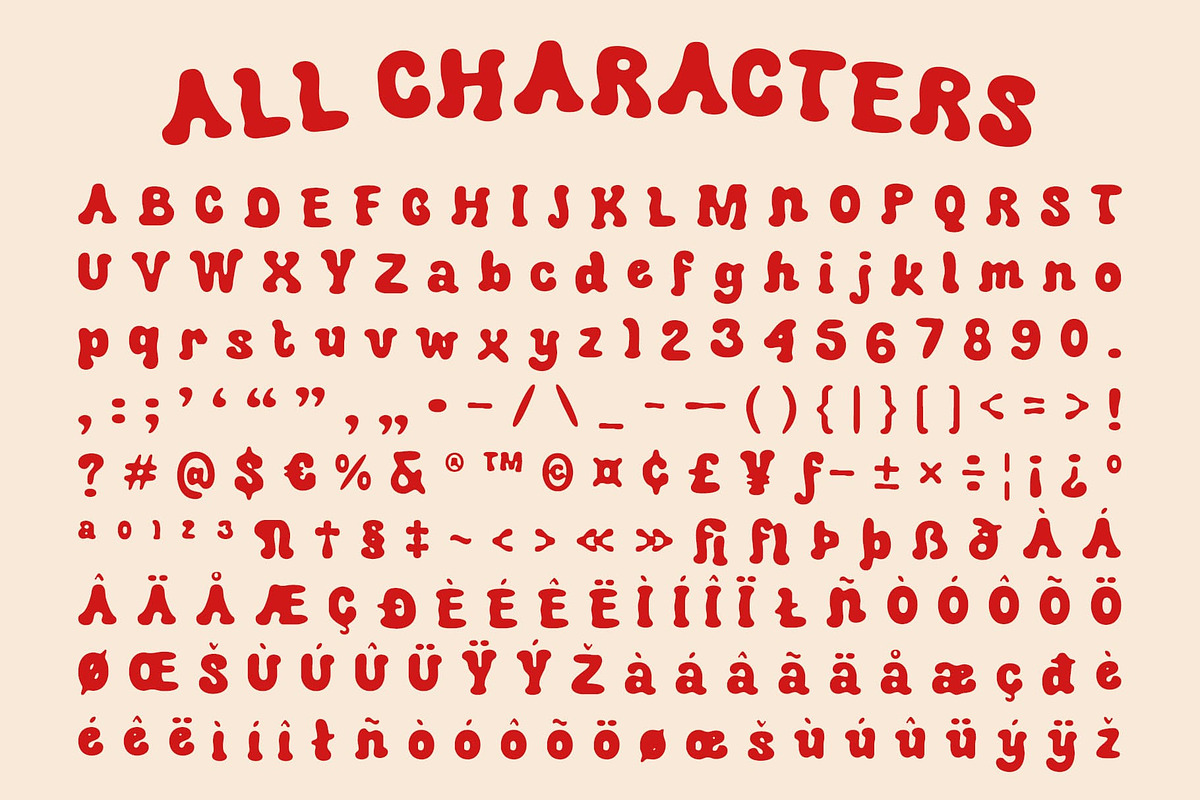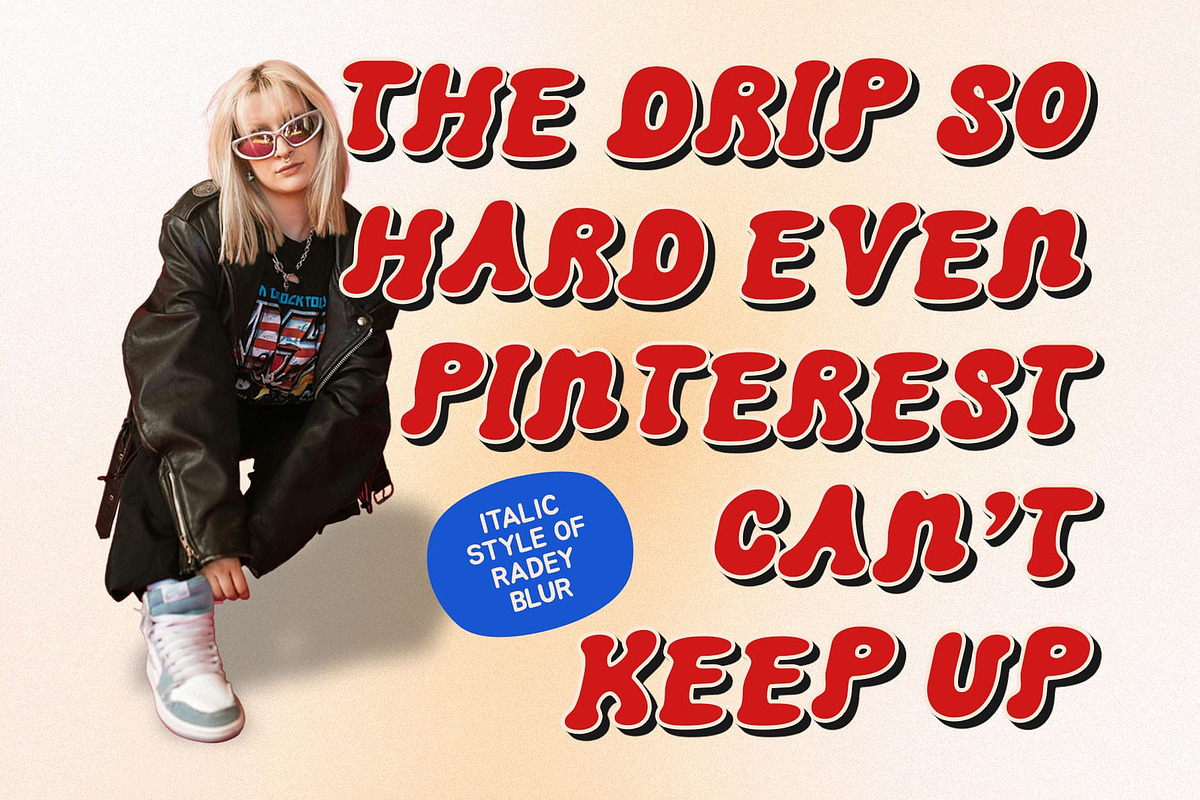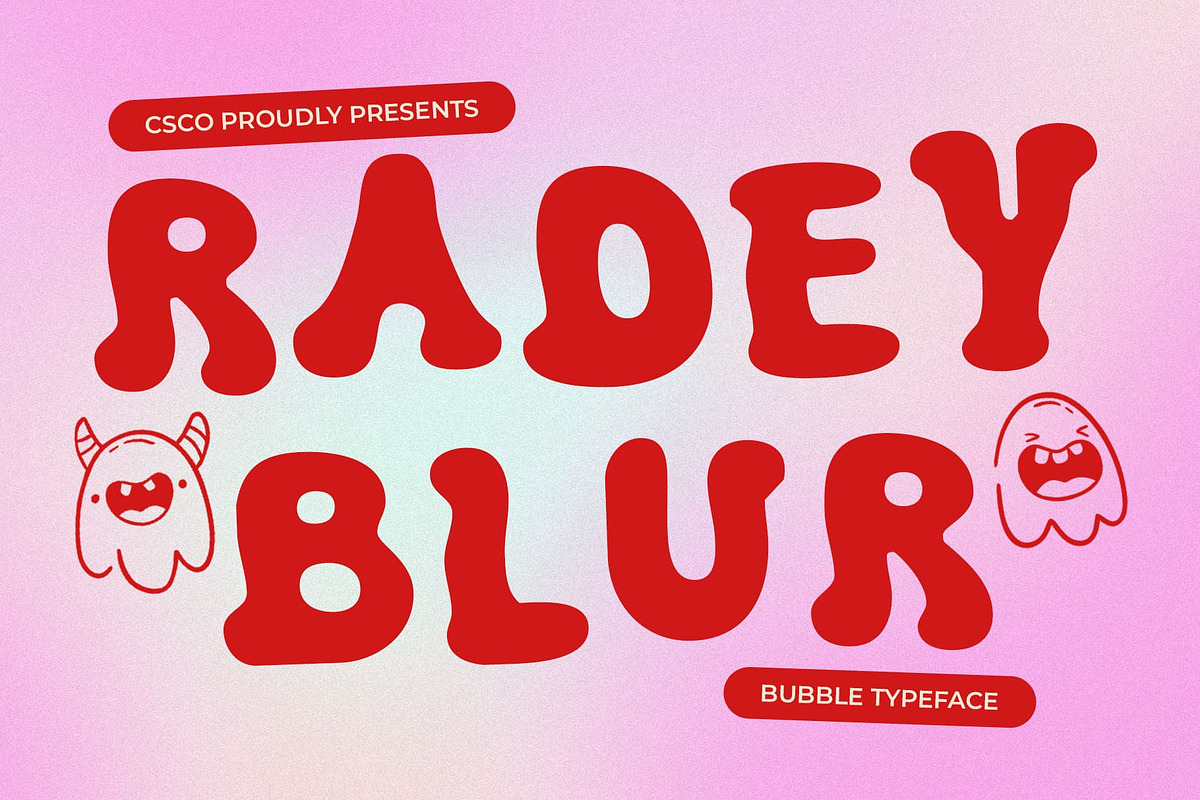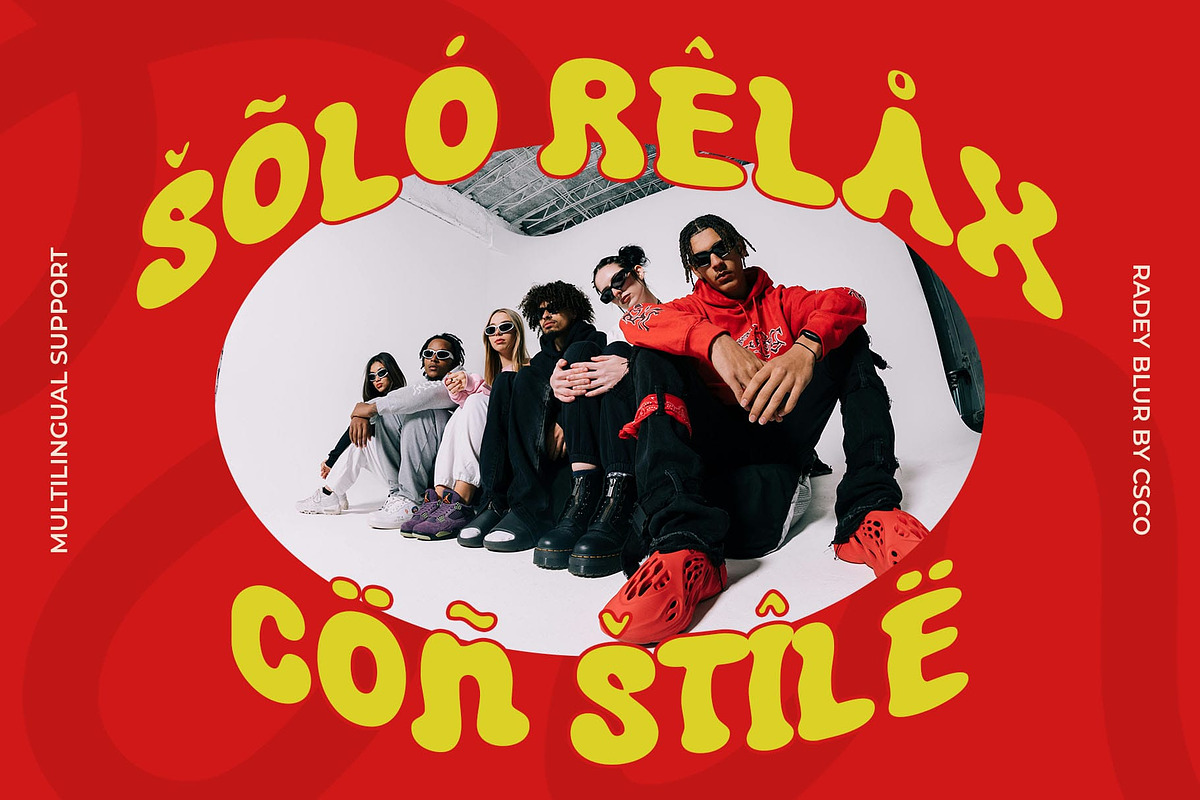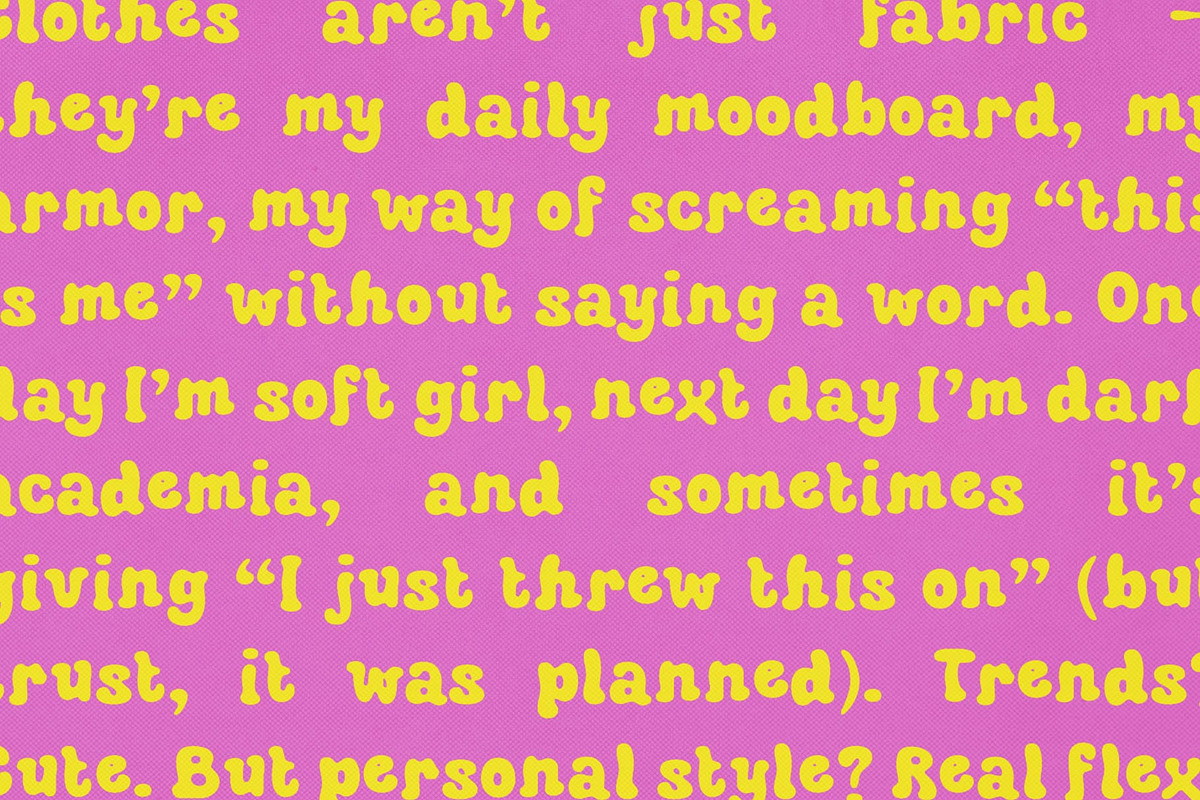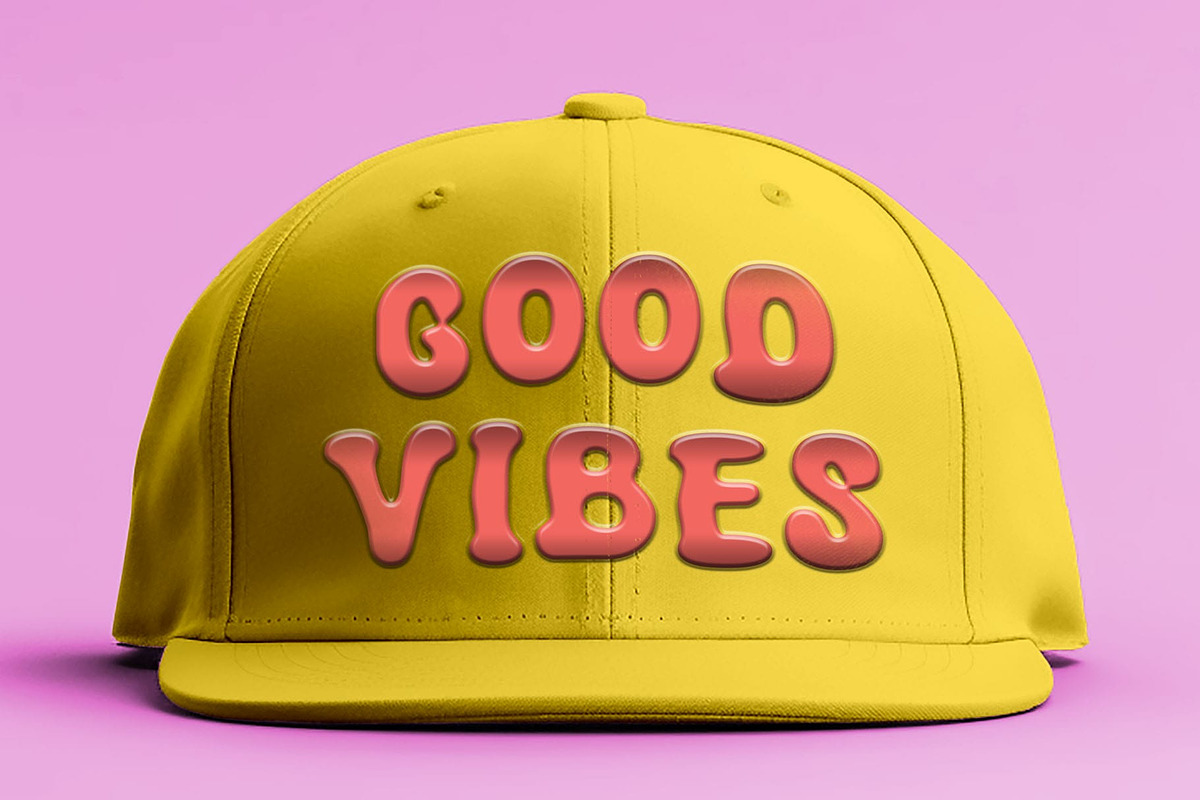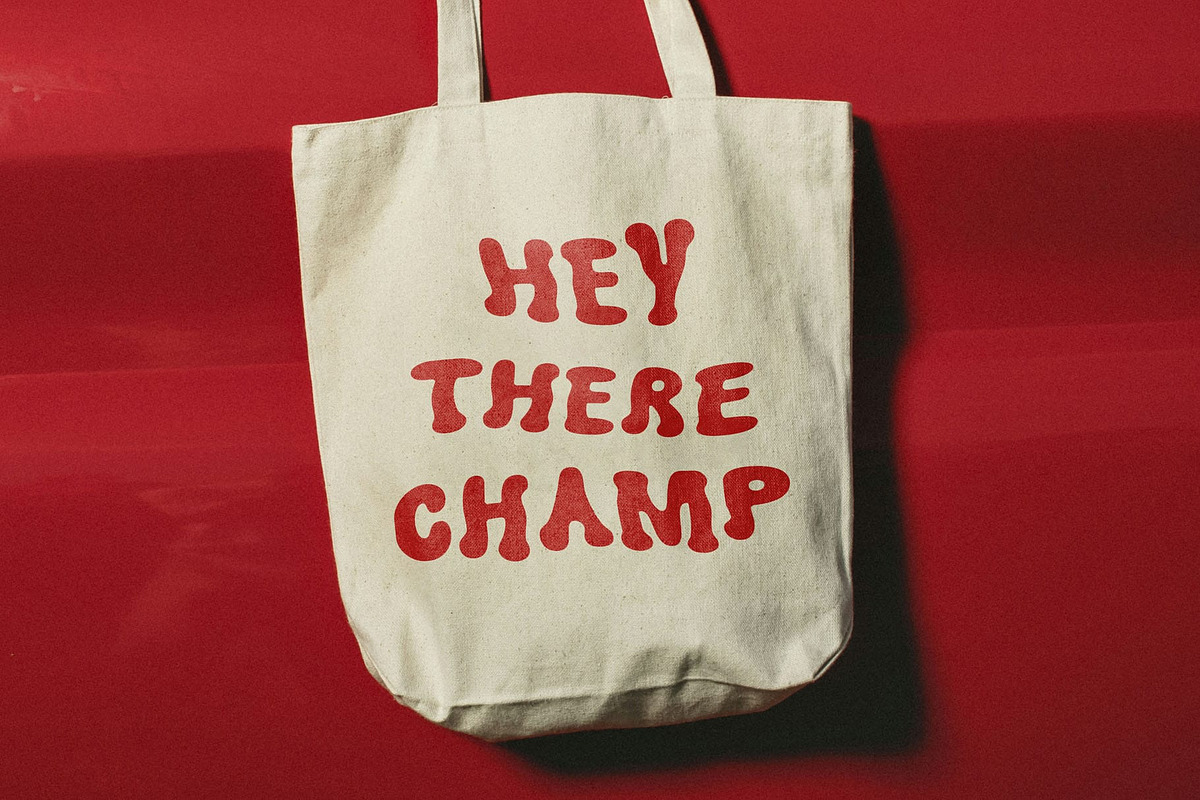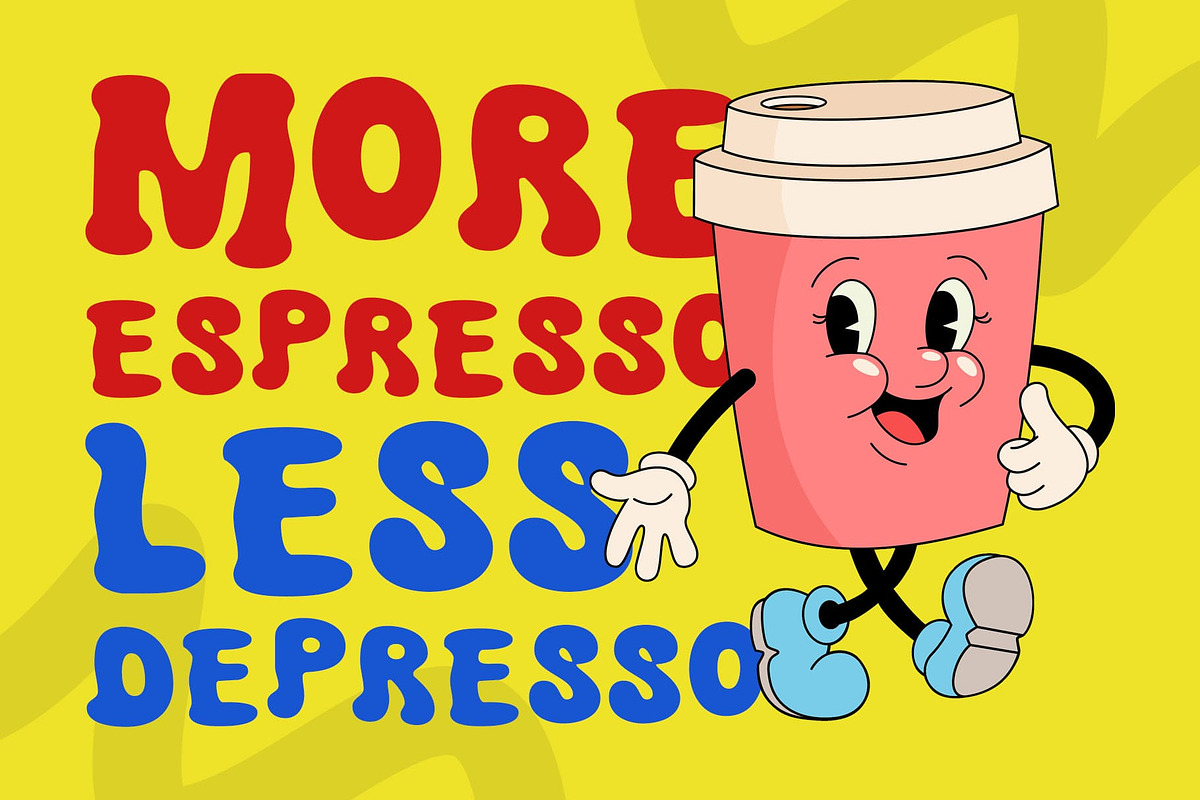
Radey Blur
Radey Blur Font : Retro Funk Meets Playful Distortion
Bold and Funky with a Retro Soul Radey Blur is a bold display font that brings back the joy and flair of retro typography. With its rounded, bubble-style letterforms, it exudes a funky and nostalgic vibe reminiscent of 70s and early 2000s design. The exaggerated curves and playful proportions create a lively rhythm, ideal for catching the eye and radiating positivity.
Blur Effect for Creative Distortion The blur effect introduces a sense of motion and softness, giving the font a spontaneous and experimental edge. It creates a visual playfulness that adds depth and intrigue—perfect for designs that aim to break convention and stand out.
Perfect for Music, Posters, and Bold Branding From music posters to youth-focused branding and vibrant packaging, Radey Blur captures attention with its bubbly charm and unconventional style. Its joyful and expressive nature makes it an excellent choice for creative projects that demand boldness and individuality.
Playful, Unique, and Full of Energy Radey Blur is not just a font—it’s a statement. With its mix of retro flair and modern blur effects, it injects fun, rhythm, and personality into any layout. Use it to amplify your message and infuse your work with funky, nostalgic brilliance.